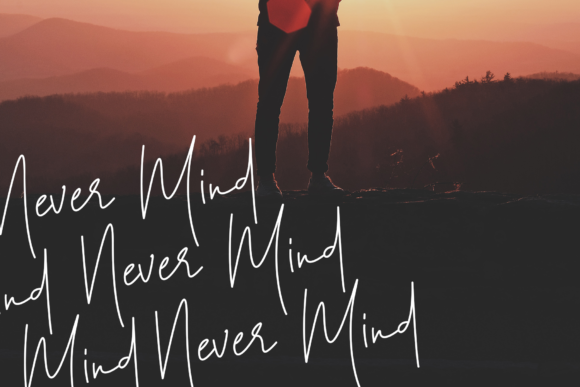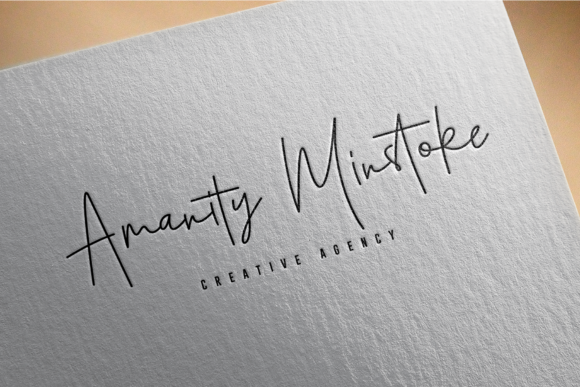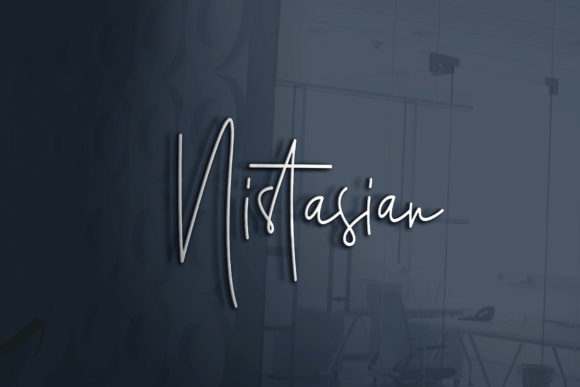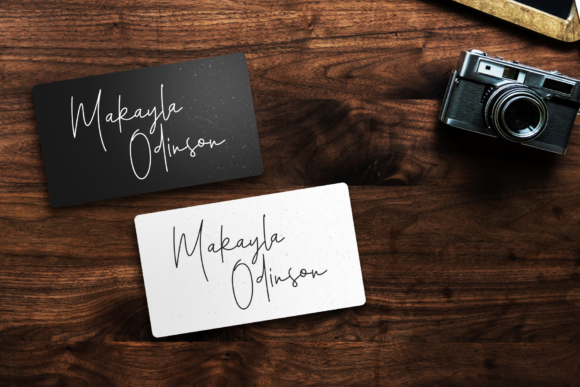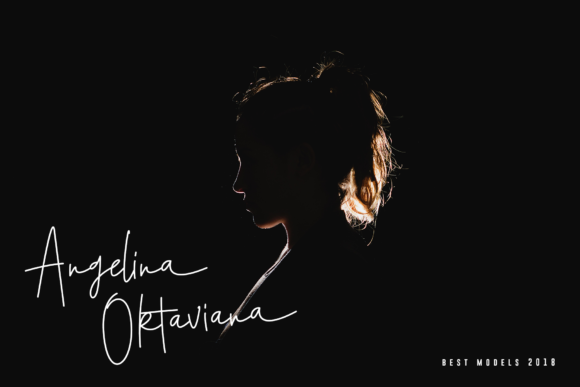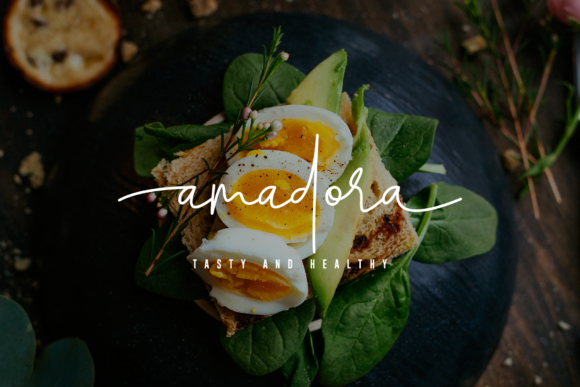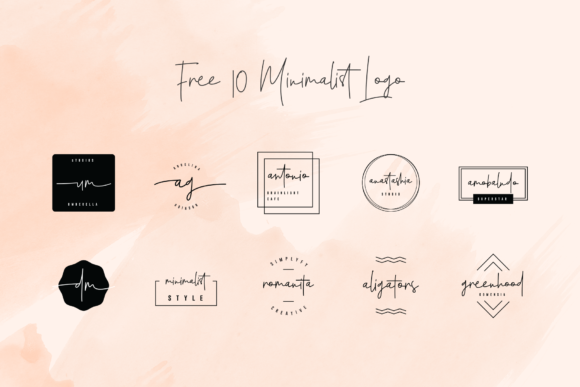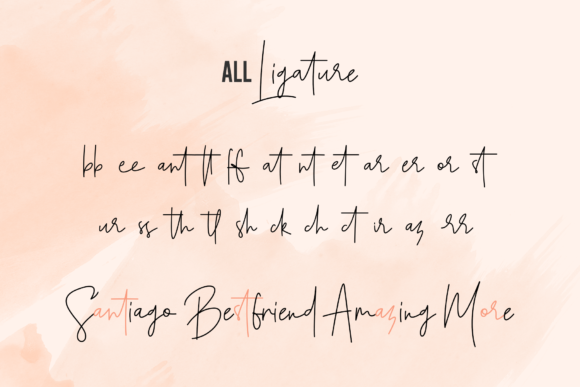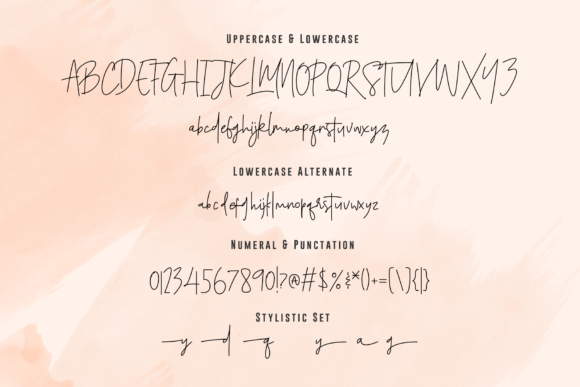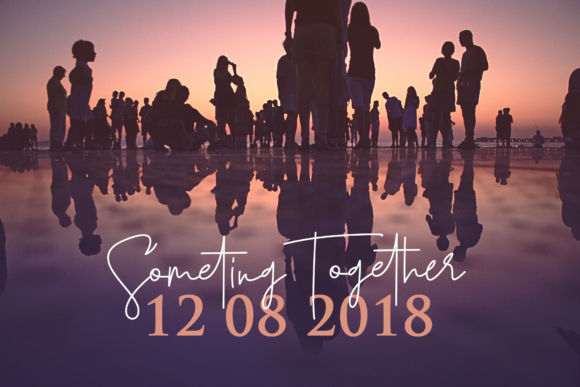
Santiago Pro Font
About Santiago Pro Font
The Santiago Pro is a fashionable and modern handwriting font script. It has a very natural writing style and can be used for various designing needs.